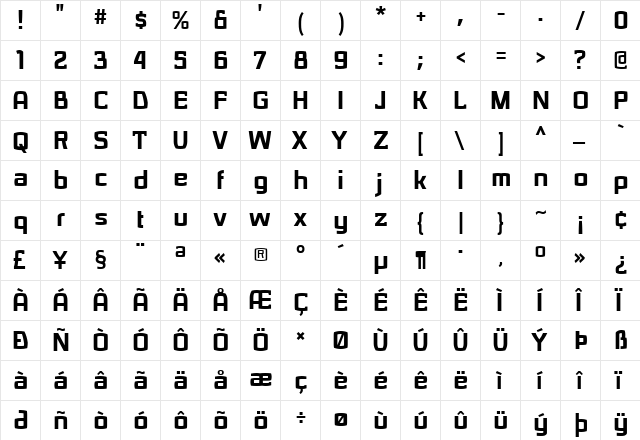
Sarasori Black Regular
Design Context for Sarasori Black Typeface
Sarasori Black offers clean, dependable letterforms without strong stylistic allegiance, making it a practical choice for designers who need flexibility.